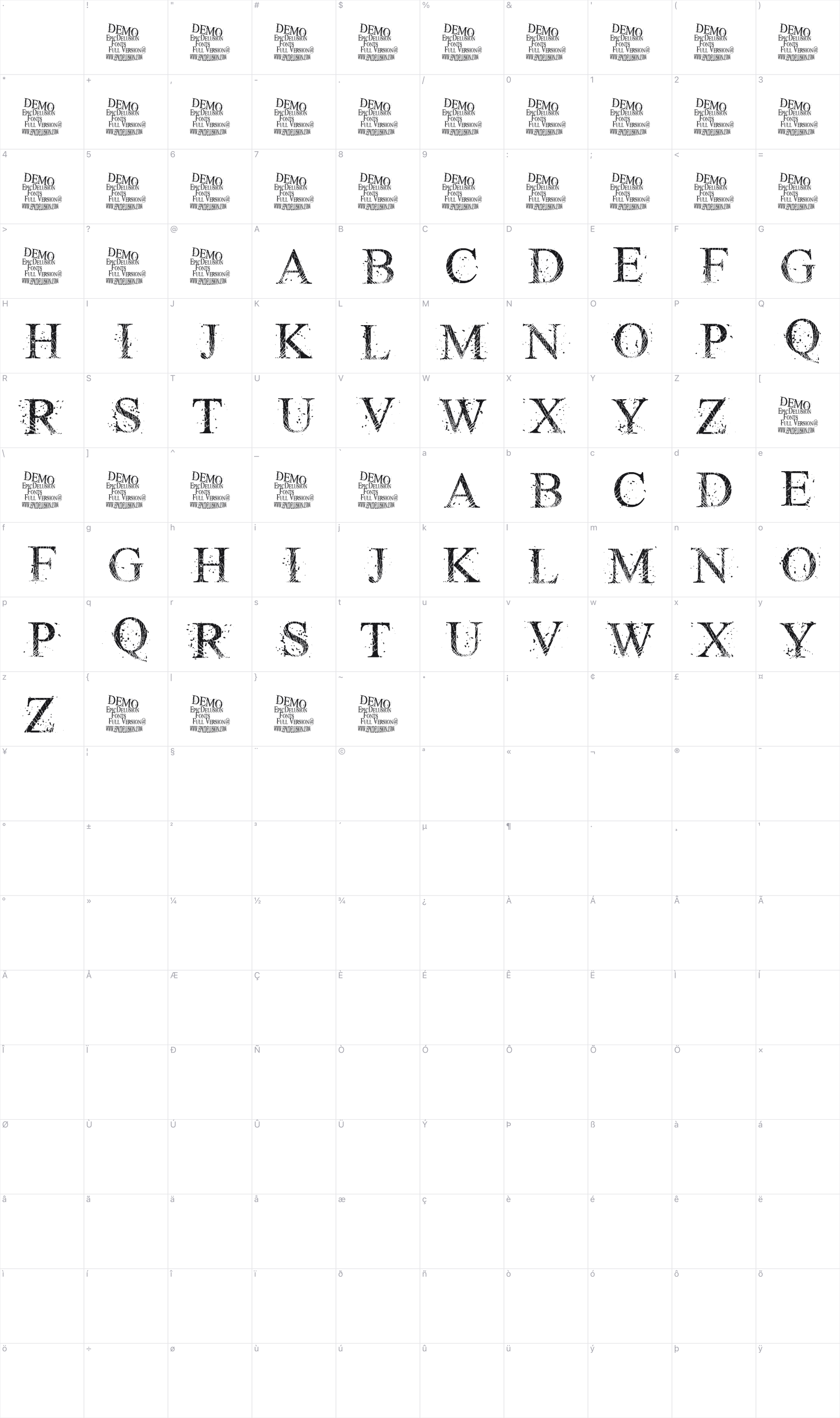
Riot Glass
Riot Glass is a bold, uppercase display face from Epic Delusion with a heavy, worn texture that makes every letter look like it's been sandblasted or peeled off a crumbling wall. The grunge treatment feels genuinely rough rather than decoratively distressed, giving it real weight for posters, album art, and headlines that need to look like they've taken some damage. Strictly a large-size face where the gritty detail can do its job.